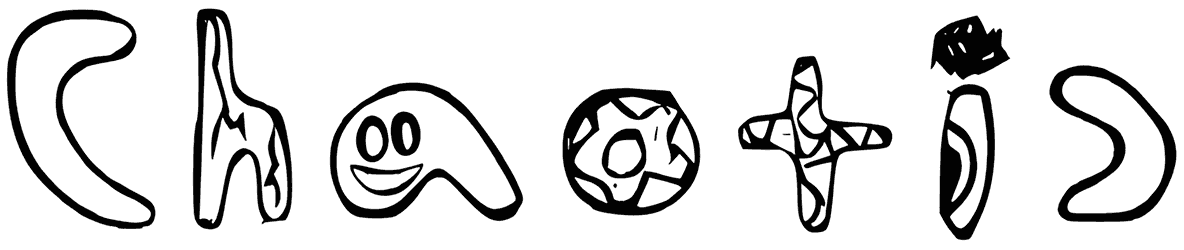
Chaotic Font
Chaotic can be considered the most creative cartoon font, which can bring a new color to your collection. This doodle font is designed by imitating children’s handwriting, which includes animated characters in each letter to increase its appeal. That’s why every toddler attracts and shows their talent by highlighting posters, advertisements, computer games, and children’s clothes.